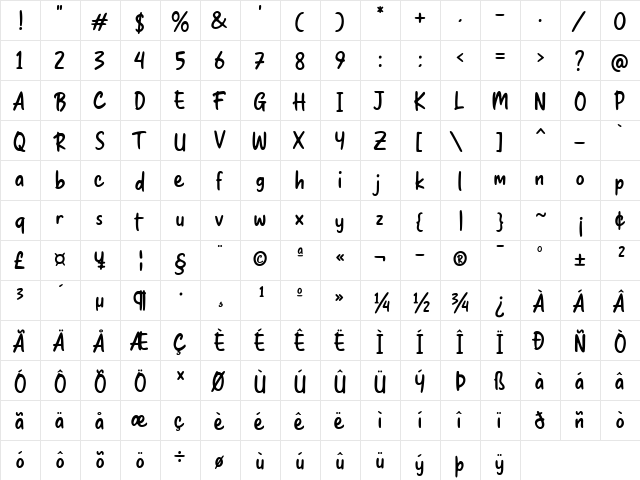
Bray Notes Regular
| Designer | Ali Hamidi |
Design Context for Bray Notes Typeface
Bray Notes is a composed and adaptable typeface that performs quietly and consistently across a wide range of design contexts.